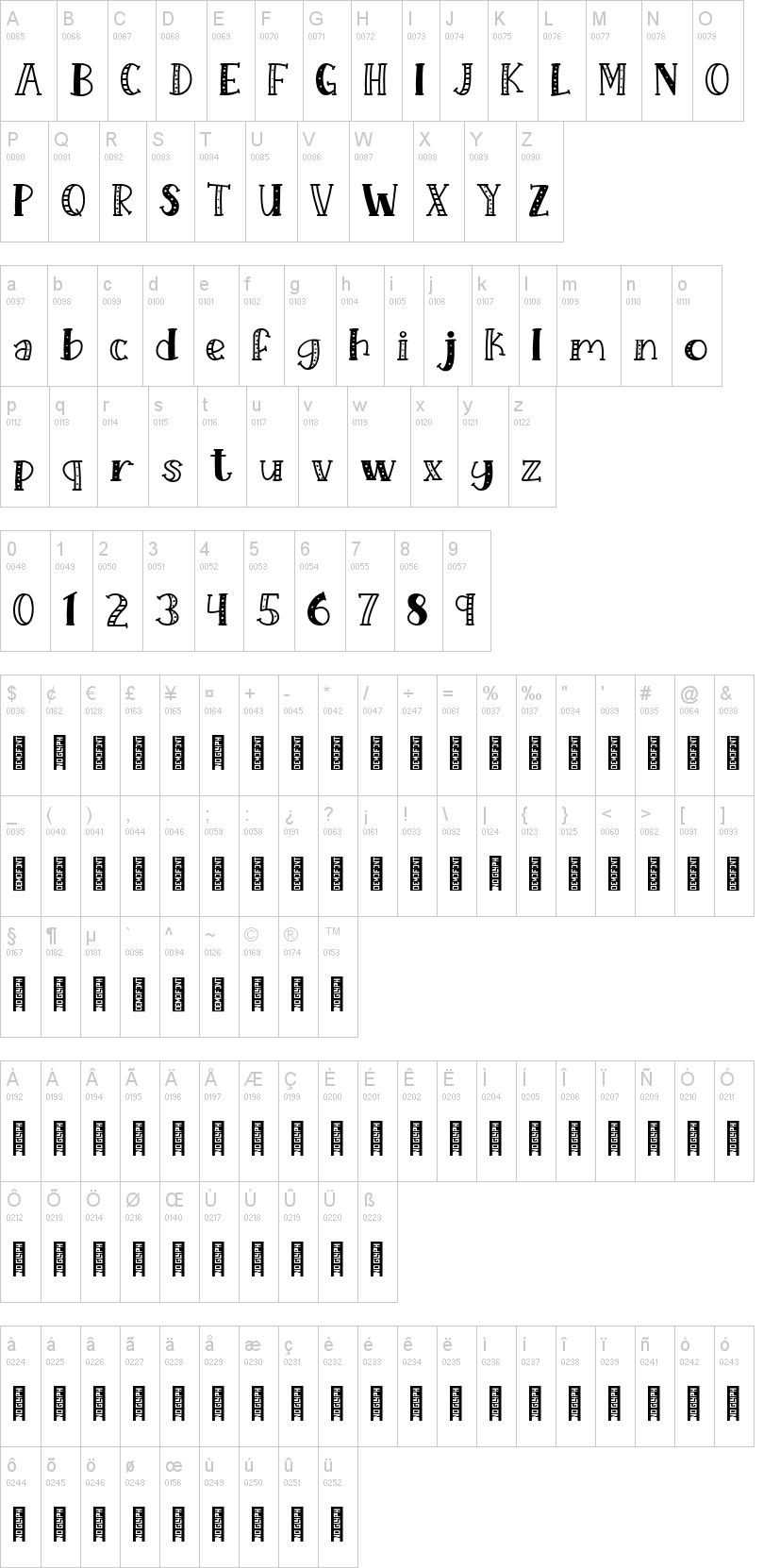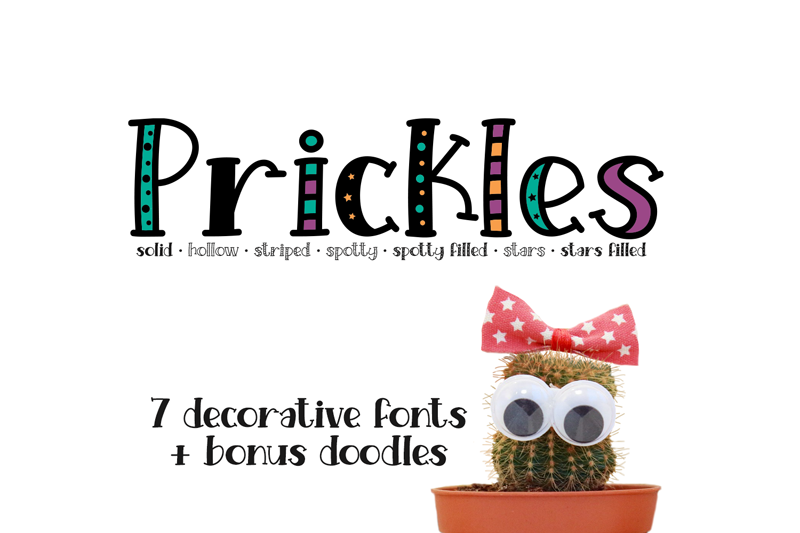
Note of the authorPrickles Complete Collection - a fun handwritten serif font in seven styles!
Plus a bonus doodle font with 52 doodles for every occasion!